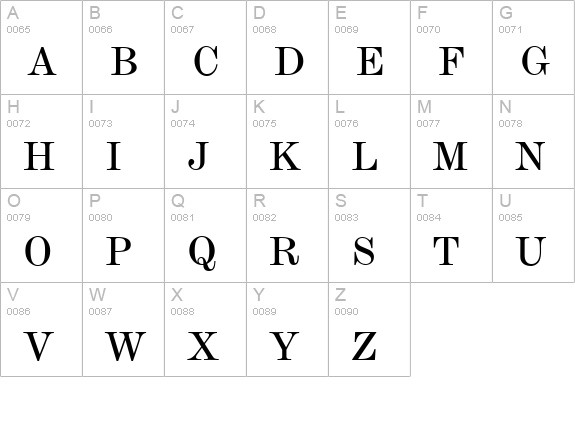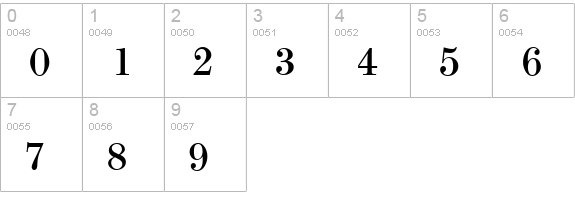
Modesto-Regular is the standard, neutral variant in the Modesto typeface family \xE2\x80\x94 well suited to general body text, paragraphs, and standard typographic work.
Modesto-Regular is a versatile and stylish font that will add a touch of elegance to your designs. With its clean lines and modern aesthetic, this font is perfect for a wide range of projects, from branding to graphic design. The perfect balance of simplicity and sophistication, Modesto-Regular is sure to make your text stand out. Best of all, Modesto-Regular is free to download at FontsMarket.com. This means you can easily access this high-quality font without any cost, making it a valuable addition to your font collection. Whether you need a font for a professional project or a personal design, Modesto-Regular is a fantastic choice that won't break the bank. Download it today and start using it in your projects to elevate your designs to the next level.